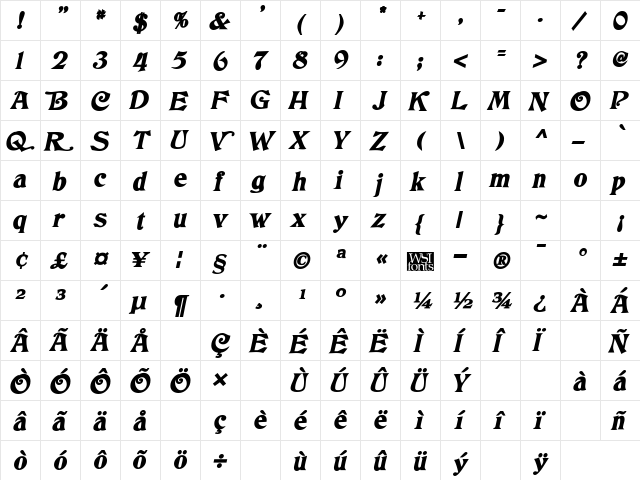
Tringle Bold Italic Font Preview
Design Context for Tringle Typeface
Tringle takes a measured approach to typography — its balanced proportions and neutral character make it a reliable workhorse for both digital and print work. Its italic angle brings a sense of urgency and motion to the letterforms. The heavy weight commands attention and anchors typographic hierarchies.
Pro Tip: Try Tringle for annotation and caption copy alongside an upright companion — the contrast in angle creates a dynamic but ordered typographic system.